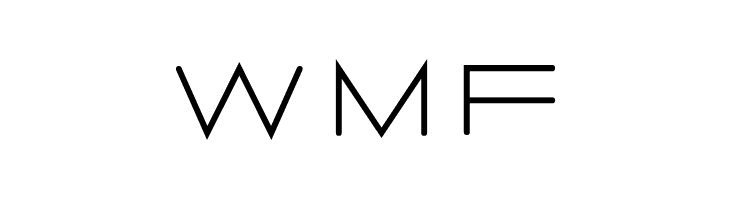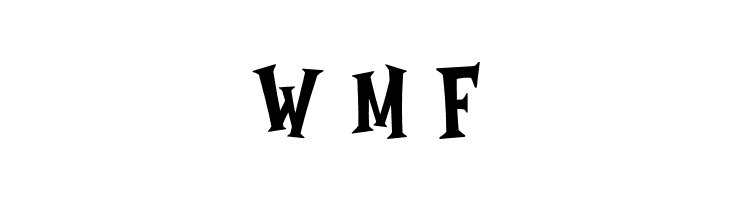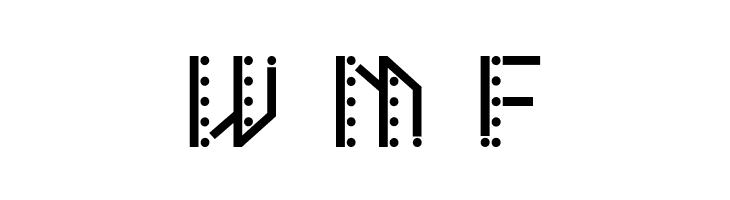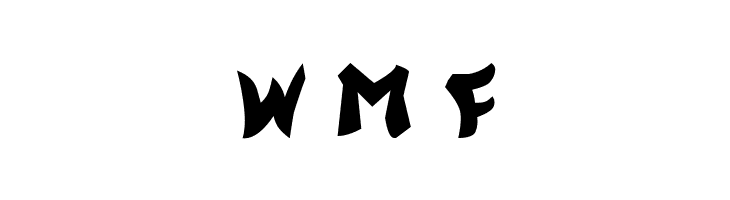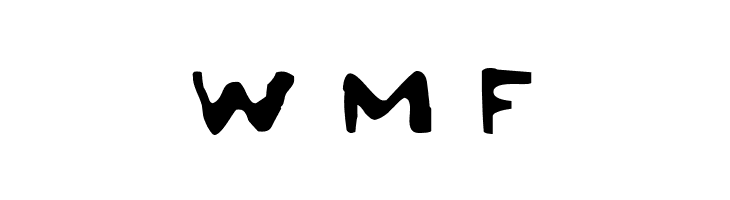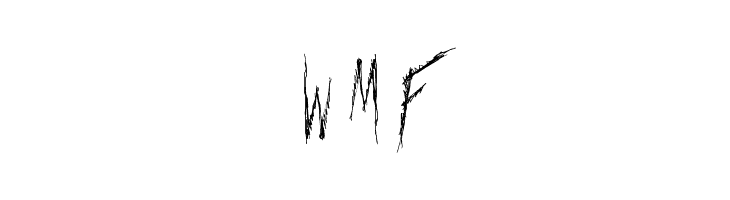
A bold, playful font with dynamic curves and a whimsical, hand-drawn style.
A chaotic, edgy font with jagged, hand-drawn strokes.
A playful, bold font with irregular strokes and a hand-drawn appearance.
A bold, angular font with a spooky, hand-drawn style.
A sleek, modern font with geometric lines and a monospaced appearance.
A decorative font featuring hand tools as characters, perfect for DIY-themed projects.
A bold, playful, and hand-drawn condensed font with a whimsical style.
A bold, playful font with rounded, hand-drawn characters.
A playful, bold outline font with rounded edges and a whimsical style.
An artistic, hand-drawn font with a whimsical and expressive style.
A bold, italic font with a dynamic and playful style.
A playful, whimsical script font with flowing, interconnected letters.
A bold, angular font with a geometric and tribal aesthetic.
A bold, eroded font with a distressed and whimsical style.
A playful, bold, and hand-drawn font with a whimsical style.
A playful, polka-dotted font with bold, rounded characters.
A bold, playful font with rounded, whimsical characters and a strong presence.
A bold, playful font with a whimsical, cartoon-like style.
An elegant and decorative script font with modern swashes and artistic flair.
An elegant, high-contrast decorative font with flowing, cursive-like strokes.
A bold, playful font with a hand-drawn, quirky style.
A bold and dynamic font with strong, impactful strokes and playful curves.
A bold, playful font with rounded, bubble-like characters and a modern, decorative style.
A bold, playful font with rounded, bubble-like characters for a modern, decorative style.
A decorative blackletter font with intricate detailing and historical elegance.
A modern, geometric sans-serif font with clean lines and uniform stroke width.
A sketchy, hand-drawn font with dynamic, textured lines.
An edgy, angular font with geometric elements and decorative details.